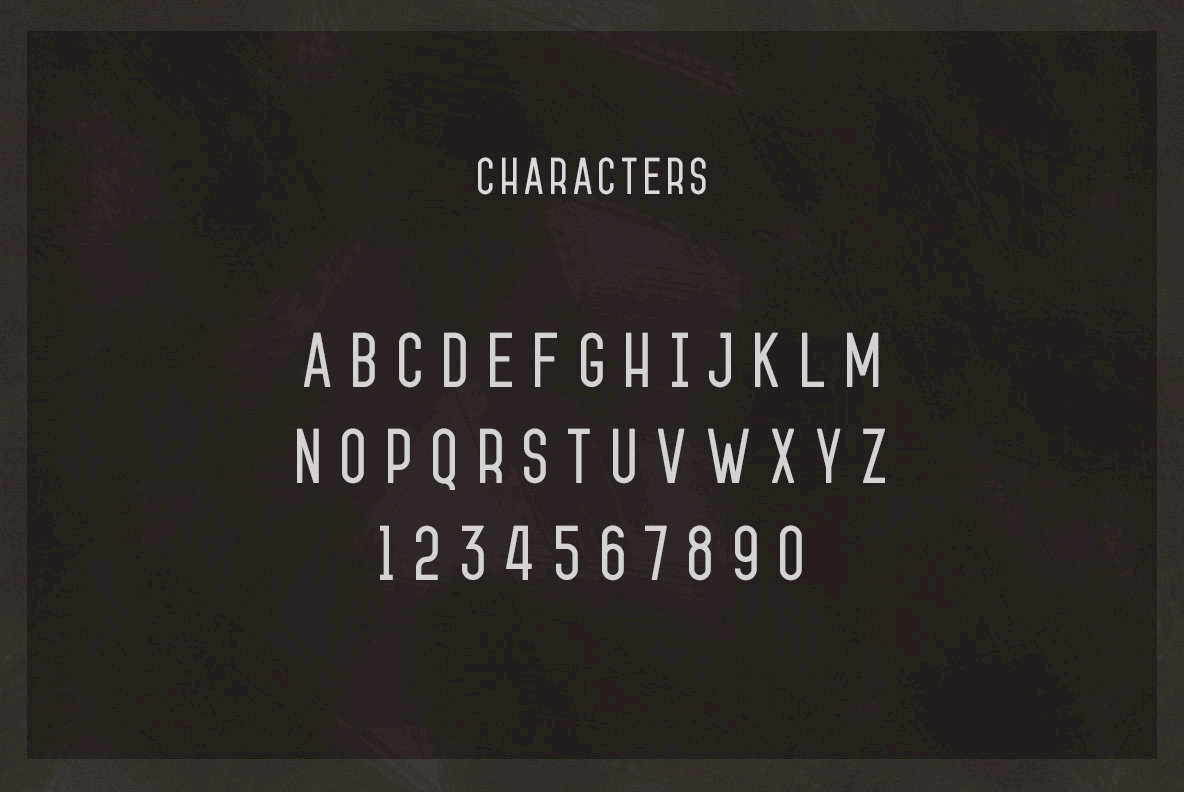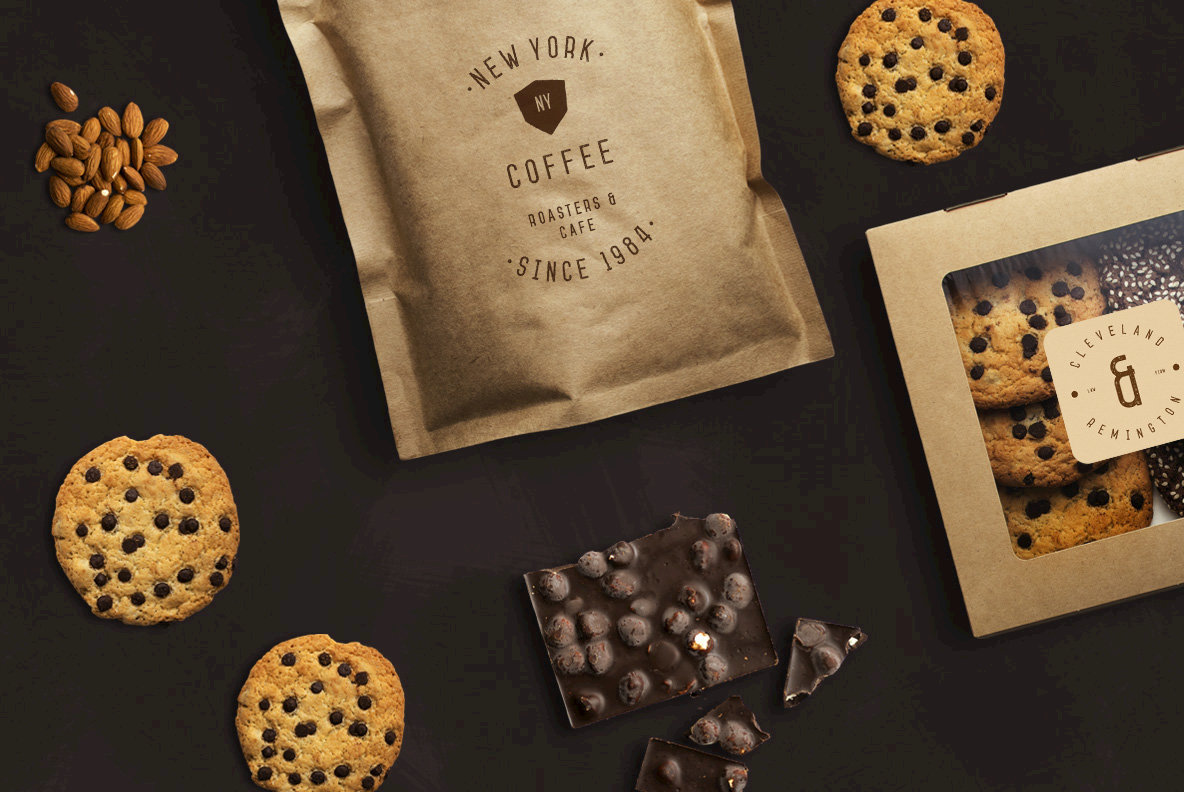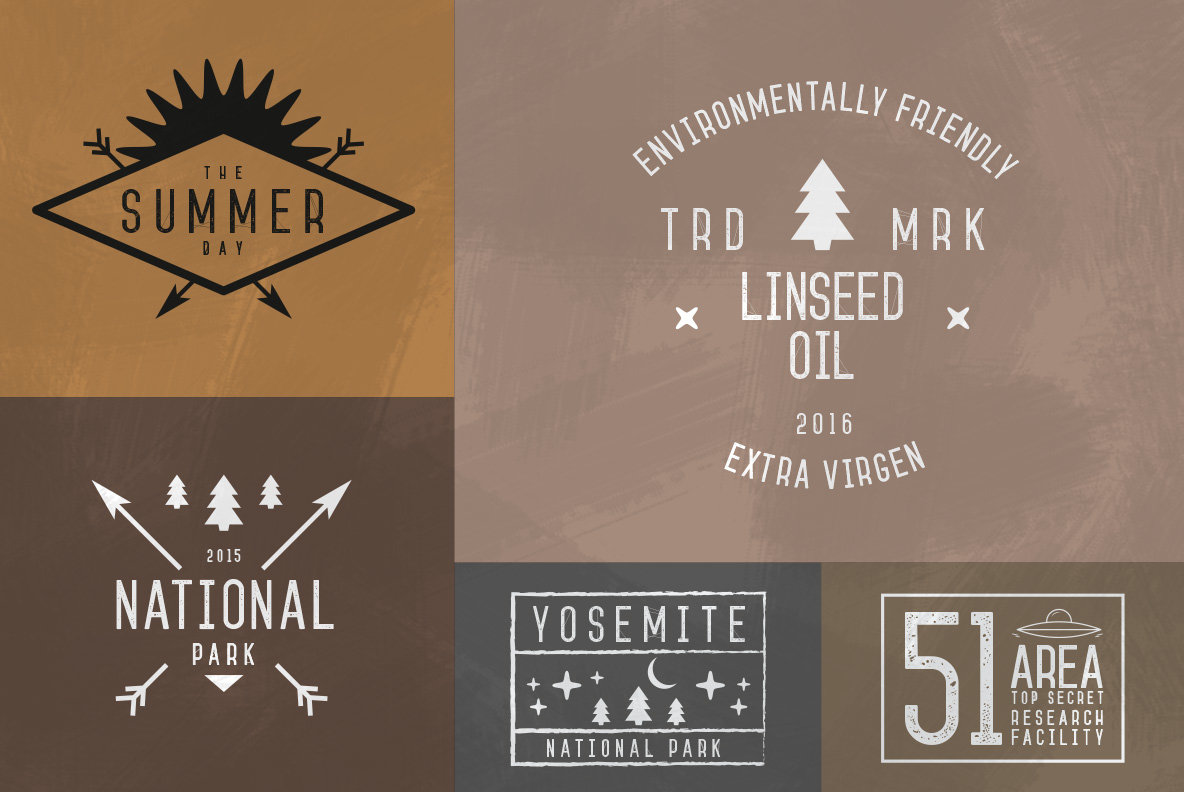
Jameson: Versatile Font with Unique Styles
The Jameson font by Artcoast Std presents an array of styles each designed to capture attention and convey a distinctive voice. This versatile typeface is ideal for varying design needs, from small headlines to larger formats. Each style within this family brings its unique character, allowing designers to adapt it seamlessly into their projects.
• Jameson Base – Classic and foundational style for diverse use cases.
• Jameson Round – Softened edges create a welcoming appearance.
• Jameson Splash – Unique effects and scrapes introduce an artistic flair.
• Jameson Press – Perfect weight and width offer ease of readability.